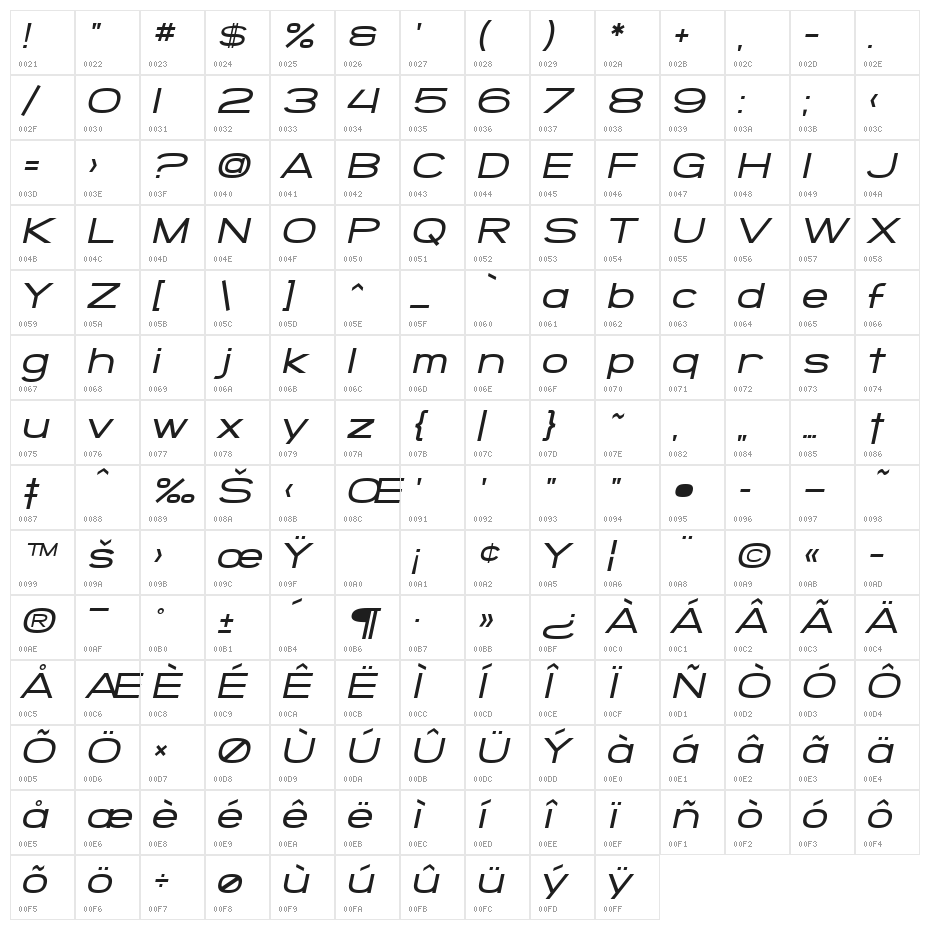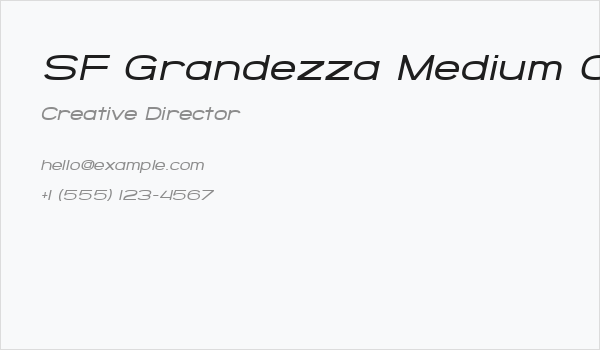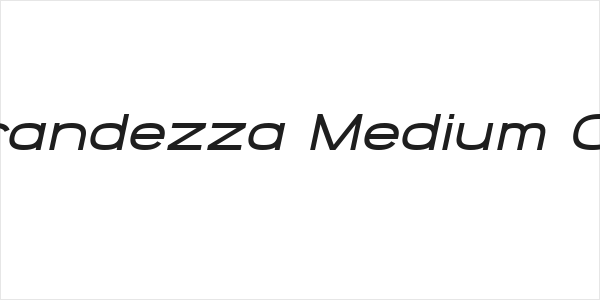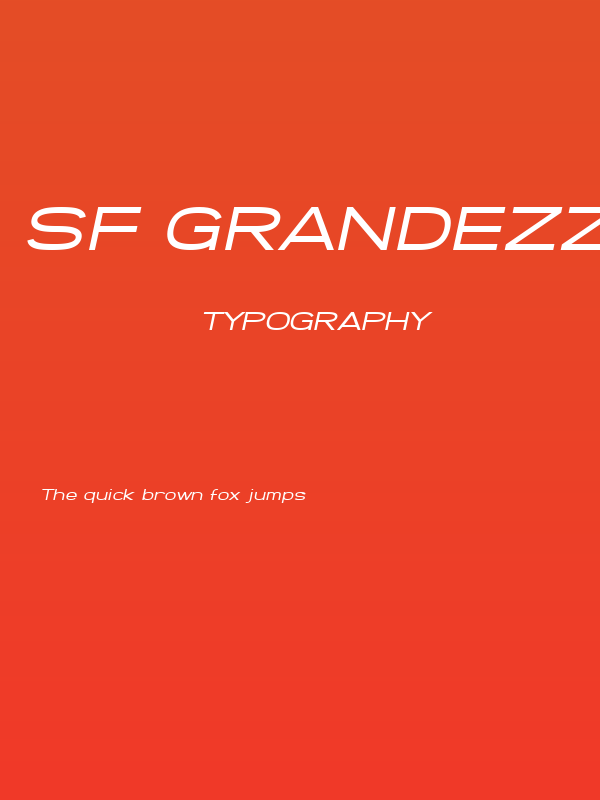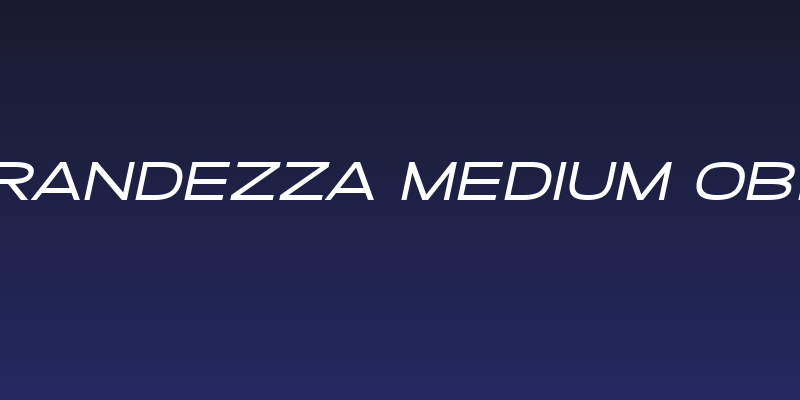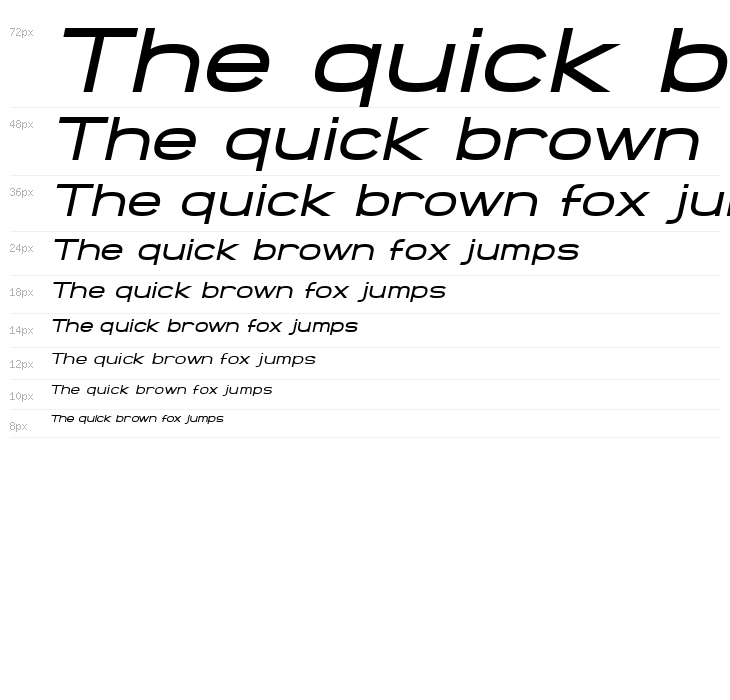
SF Grandezza Medium Oblique Font
SF Grandezza Medium Oblique Description
This font features a sleek, modern design with a distinct oblique style, giving it a dynamic and forward-leaning appearance. The characters are well-defined with smooth curves and a consistent stroke width, contributing to its clean and professional look. The uppercase and lowercase letters maintain a uniform style, ensuring readability and elegance. The numerals and special characters are crafted with the same attention to detail, making them easily distinguishable. This font's oblique nature adds a sense of motion and energy, making it suitable for contemporary design projects.
Use CaseHeadlines, Logos, Digital media
Proposed ProjectsIdeal for branding, advertising, and digital media projects that require a modern and energetic aesthetic.